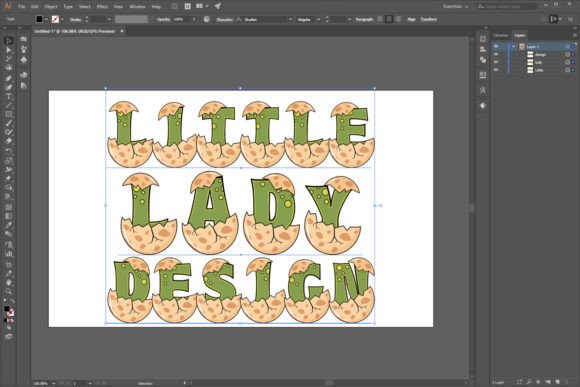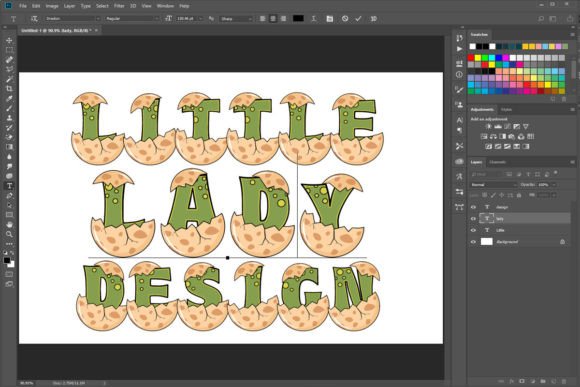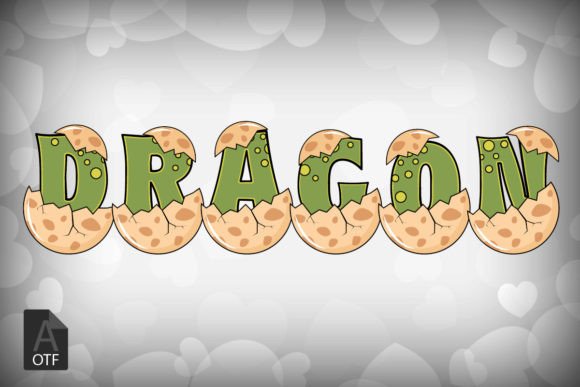
Dragon Font: A Cute and Adorable Color Font for Your Design Needs
Are you a designer or crafter looking for a unique and eye-catching font to elevate your designs? Look no further than the Dragon Font! This adorable color font is sure to capture the attention of your audience and add a touch of whimsy to any project. In this article, we’ll dive into the features and benefits of the Dragon Font, and explore how it can be a valuable resource for your font library.
What is Dragon Font?
Dragon Font is a digital font designed to resemble a cute and adorable dragon’s style. The font is highly detailed, with intricate lines and curves that give it a playful and charming feel. The color font feature adds an extra layer of visual interest, allowing you to use it in a variety of design projects, from children’s books to branding and advertising materials.
Key Features of Dragon Font
- Cute and Adorable Design: The Dragon Font is designed to be visually appealing, with a cute and adorable style that’s sure to delight audiences of all ages.
- Highly Detailed: The font features intricate lines and curves, giving it a high level of detail and texture.
- Color Font: The Dragon Font is a color font, allowing you to use it in a variety of colors and designs.
- Versatile: The font is suitable for a wide range of design projects, from children’s books to branding and advertising materials.
Benefits of Using Dragon Font
So why should you consider adding the Dragon Font to your font library? Here are just a few benefits of using this adorable color font:
- Adds Visual Interest: The Dragon Font is sure to capture the attention of your audience, adding a touch of whimsy and visual interest to your designs.
- Enhances Creativity: The font’s unique and playful design can help inspire creativity and add a fresh perspective to your designs.
- Saves Time: With the Dragon Font, you can quickly and easily add a professional-looking design element to your projects, saving you time and effort.
- Scalable: The font is highly scalable, allowing you to use it in a variety of design projects, from small icons to large billboards.
How to Use Dragon Font in Your Designs
So how can you use the Dragon Font in your designs? Here are a few ideas to get you started:
- Children’s Books: The Dragon Font is perfect for children’s books, adding a touch of whimsy and fun to your illustrations and text.
- Branding and Advertising: The font can be used to create eye-catching branding and advertising materials, such as logos, posters, and flyers.
- Social Media Graphics: The Dragon Font can be used to create engaging social media graphics, such as Facebook posts and Instagram stories.
- Crafting and DIY Projects: The font can be used in a variety of crafting and DIY projects, such as card making, scrapbooking, and paper crafting.
In conclusion, the Dragon Font is a cute and adorable color font that’s sure to be a valuable resource for your font library. With its highly detailed design, versatile usage, and scalability, this font is perfect for a wide range of design projects. Whether you’re a designer, crafter, or DIY enthusiast, the Dragon Font is sure to add a touch of whimsy and visual interest to your designs. So why not give it a try and see the difference it can make in your designs?